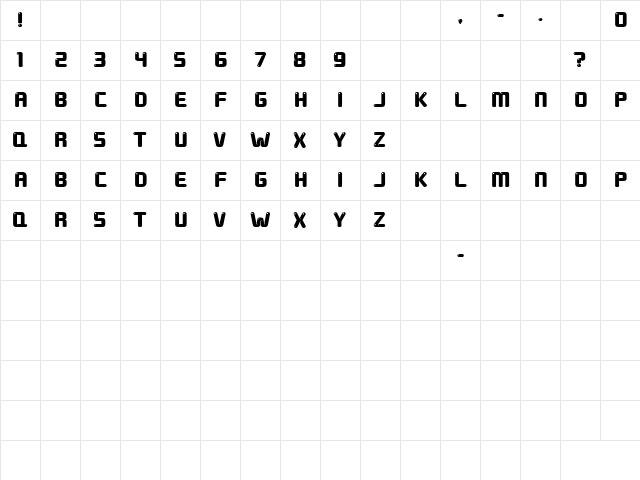
grounf round Regular Font Preview
grounf round Regular
Design Context for grounf round Typeface
grounf round uses gentle rounded endings to create a warm, inviting typographic personality — less corporate than geometric sans, more refined than playful display fonts.
Well-suited to UI design, mobile interfaces, and any brand that wants approachability without sacrificing clarity.
Font Pairing: Pairs well with a rounded or humanist sans for body copy, maintaining the friendly tone without relying on grounf round to carry extended reading.
Pro Tip: Use grounf round for UI elements, app interfaces, and anywhere a friendly, approachable tone needs to be maintained without sacrificing clarity.